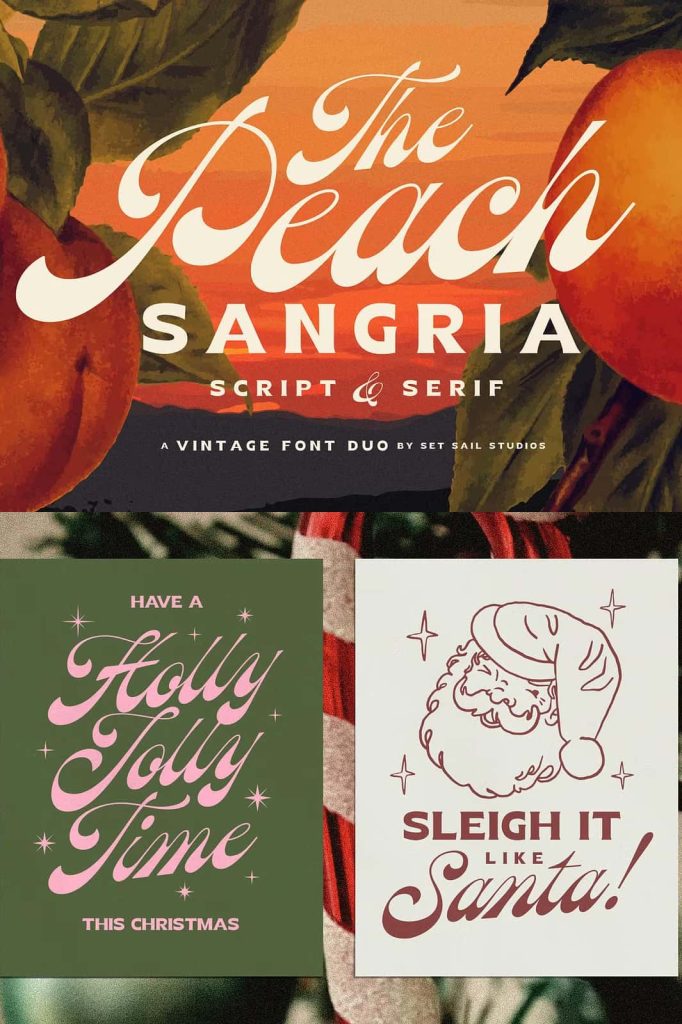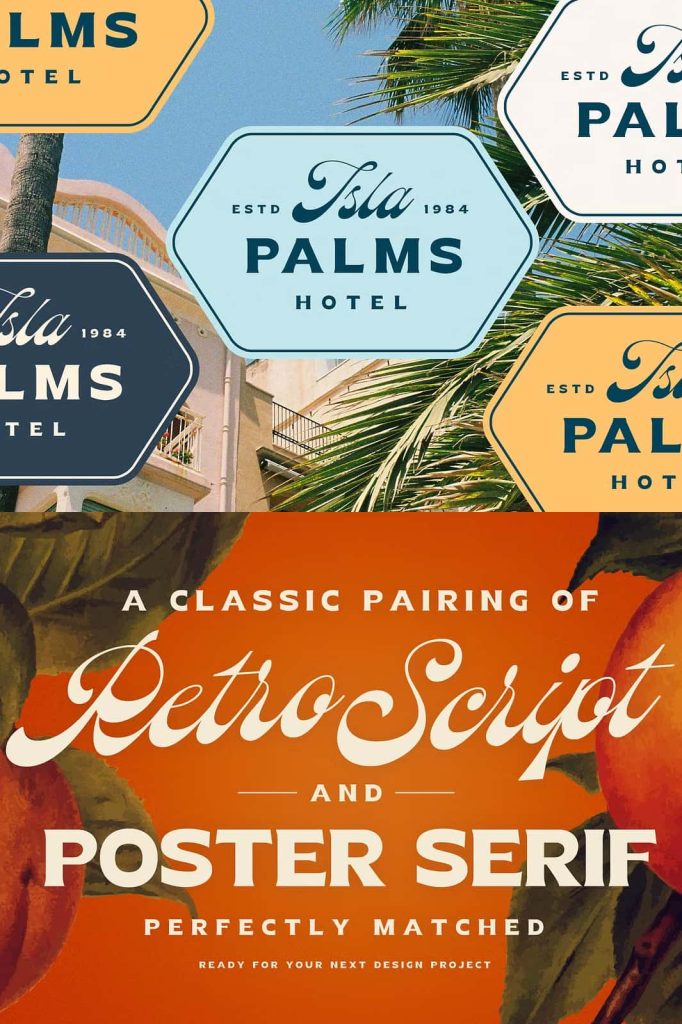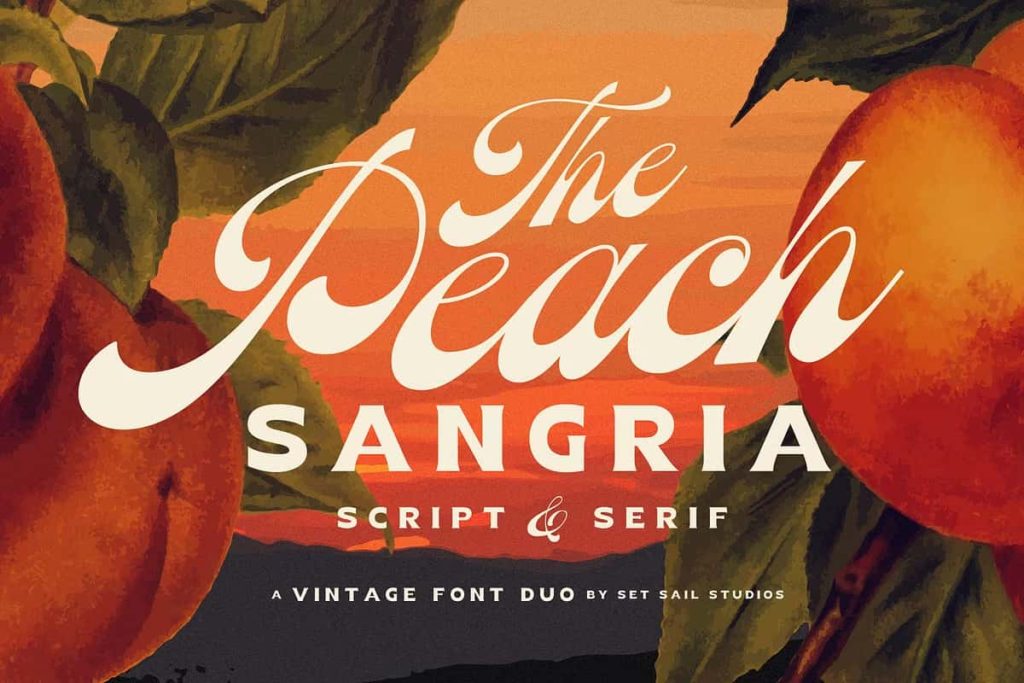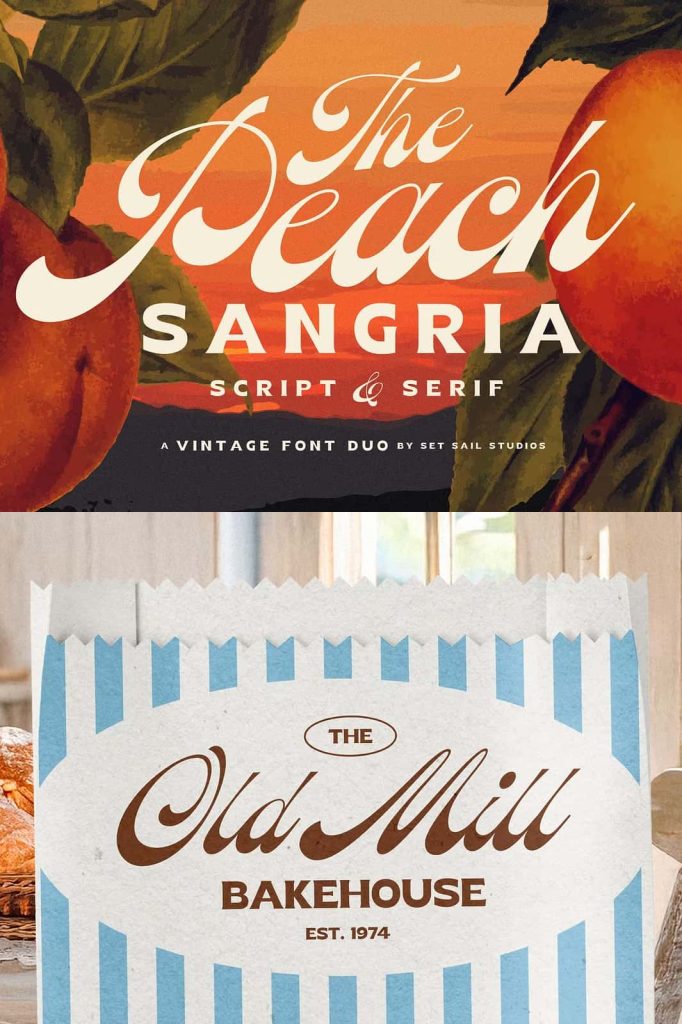
Peach Sangria Script and Serif Font Duo
Peach Sangria Script and Serif Font Duo is a beautifully crafted retro-inspired font combination that brings together the elegance of flowing handwritten script with the bold confidence of a chunky serif display font. Designed to work perfectly as a pair, this versatile font duo helps designers create eye-catching typography that feels nostalgic, stylish, and professionally balanced.
The centerpiece of the collection is a graceful, bottom-heavy script font inspired by classic hand lettering and vintage signage. Its smooth curves, flowing strokes, and expressive personality instantly add warmth and sophistication to any creative project. Complementing the script is a bold serif typeface with strong structure and impressive readability, making it an ideal companion for headlines, subheadings, supporting text, and display layouts.
Whether you are building a memorable brand identity, designing retro packaging, creating editorial layouts, or producing engaging social media graphics, Peach Sangria provides the perfect combination of elegance and strength for projects that demand timeless visual appeal.
A Beautiful Pairing of Script and Serif Typography
Finding two fonts that naturally complement each other can often be a time-consuming process. Peach Sangria eliminates that challenge by providing a professionally designed script and serif pairing that works harmoniously from the very beginning.
The flowing script introduces movement, personality, and handcrafted elegance, while the bold serif adds structure, stability, and visual contrast. Together they create balanced typography that looks polished across both large display titles and supporting text.
Designers can confidently combine the two fonts in countless ways, creating layouts that feel cohesive without sacrificing creativity or flexibility.
Inspired by Retro Typography
Peach Sangria draws inspiration from vintage advertising, classic packaging, mid-century signage, and nostalgic lettering styles that continue to influence modern design. Rather than simply recreating historical typography, this font duo modernizes those influences with cleaner construction and improved versatility.
The result is a typeface collection that celebrates retro aesthetics while remaining suitable for today’s creative industry. It delivers timeless charm that works equally well in vintage-themed projects and contemporary branding.
Elegant Flowing Script with Timeless Character
The script font serves as the heart of the Peach Sangria collection. Its flowing, bottom-heavy construction creates beautiful movement throughout every word while maintaining excellent readability. The elegant curves and natural rhythm give each composition a handcrafted appearance that feels inviting and authentic.
This timeless script is perfect for creating sophisticated logos, product names, invitations, signatures, and decorative headlines that immediately capture attention.
Bold Serif Designed for Perfect Balance
Complementing the expressive script is a chunky serif font designed specifically to work alongside it. The serif introduces bold geometric structure that creates strong visual hierarchy while preserving harmony throughout the design.
Whether used for large poster headlines or smaller supporting text, the serif font delivers excellent clarity and visual strength. Together with the script, it forms a complete typography system suitable for both print and digital projects.
Perfect for Branding and Logo Design
Typography defines the personality of a brand, and Peach Sangria gives designers the tools to create memorable visual identities with ease. The script communicates creativity, elegance, and warmth, while the serif reinforces professionalism and confidence.
This combination works exceptionally well across a wide variety of industries, including fashion, beauty, hospitality, artisan products, cafés, lifestyle brands, and boutique businesses.
Recommended Branding Applications
- Vintage logos
- Fashion branding
- Coffee shop identities
- Restaurant branding
- Beauty product packaging
- Lifestyle brands
- Boutique businesses
- Artisan product labels
- Personal branding
Excellent for Editorial and Display Design
Peach Sangria performs beautifully in editorial layouts where strong typography becomes the focal point of the composition. Magazine covers, book titles, brochures, catalogs, posters, and promotional materials all benefit from the balanced relationship between the flowing script and bold serif.
Designers can use the script to highlight important words while relying on the serif to organize supporting information, creating visually engaging layouts with professional consistency.
Create Stunning Packaging and Promotional Materials
Product packaging requires typography that communicates quality and personality instantly. Peach Sangria helps products stand out through its combination of nostalgic elegance and bold display styling.
Peach Sangria Script and Serif Font Duo is a stylish retro-inspired typeface collection that perfectly combines an elegant flowing script with a bold display serif. Inspired by classic vintage lettering while optimized for modern creative workflows, it offers exceptional versatility for branding, logos, packaging, editorial design, posters, invitations, marketing materials, and digital content. Whether you are creating nostalgic visual identities or contemporary designs with timeless character, Peach Sangria helps every project communicate confidence, elegance, and lasting visual impact.